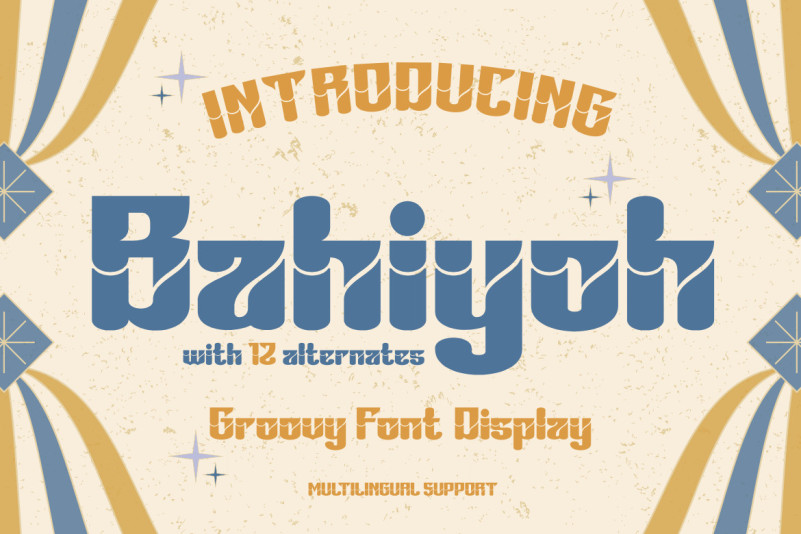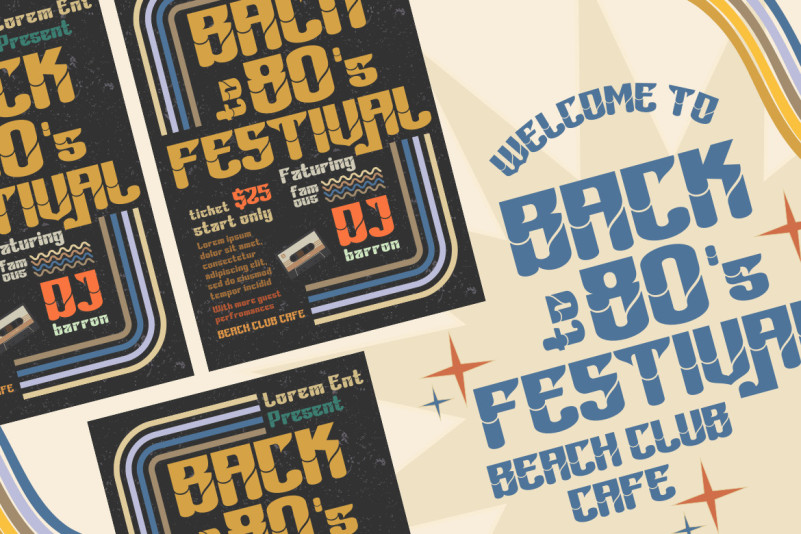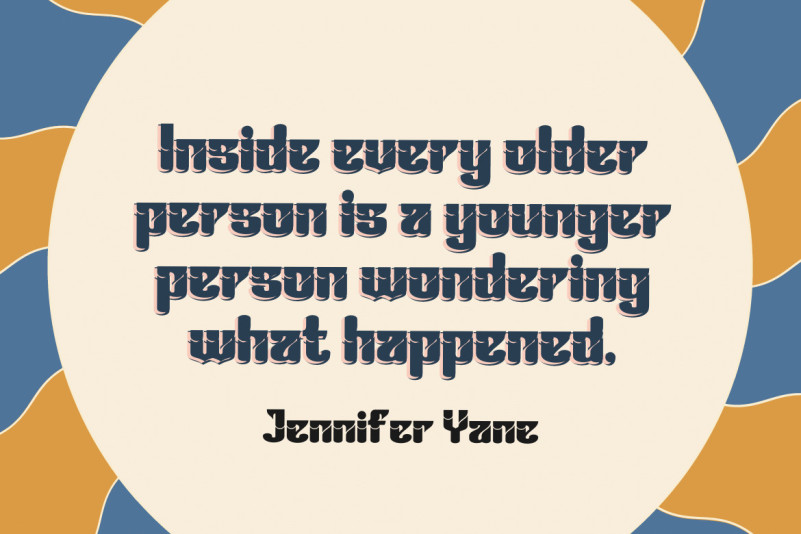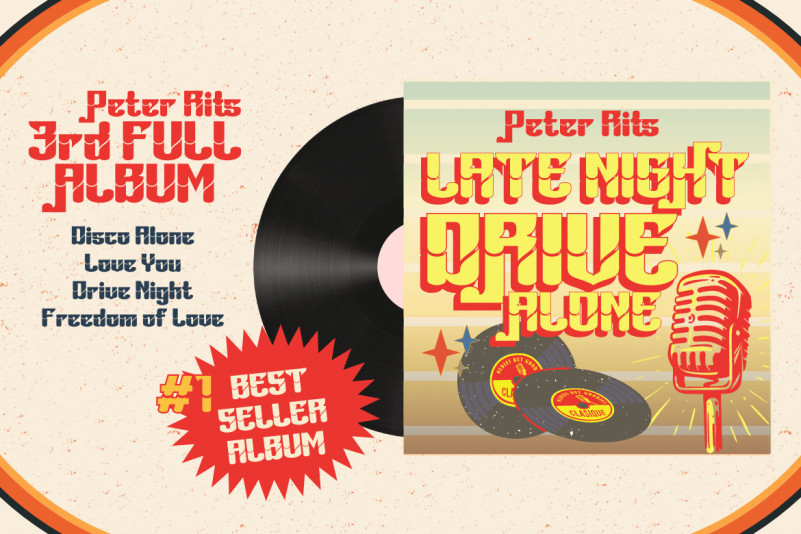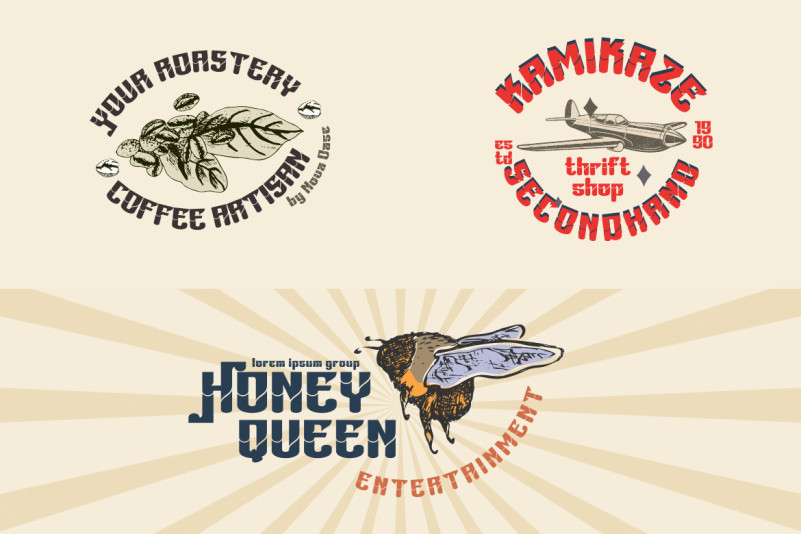
Bahiyoh Font
Bahiyoh Display Font – This vintage font combines classic appeal with contemporary design sensibilities to create a unique yet professional look. Use this font in any design project to add your own sense of nostalgia.